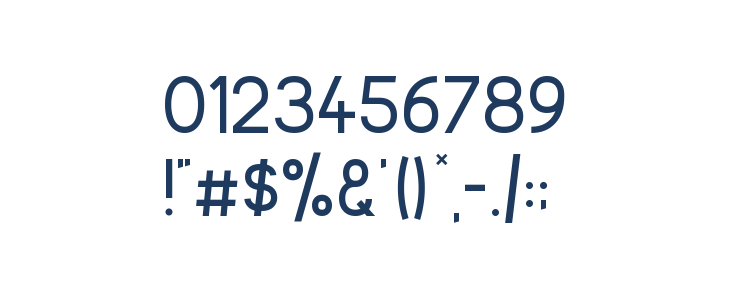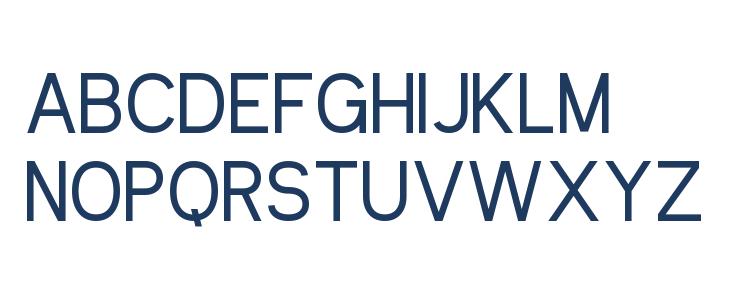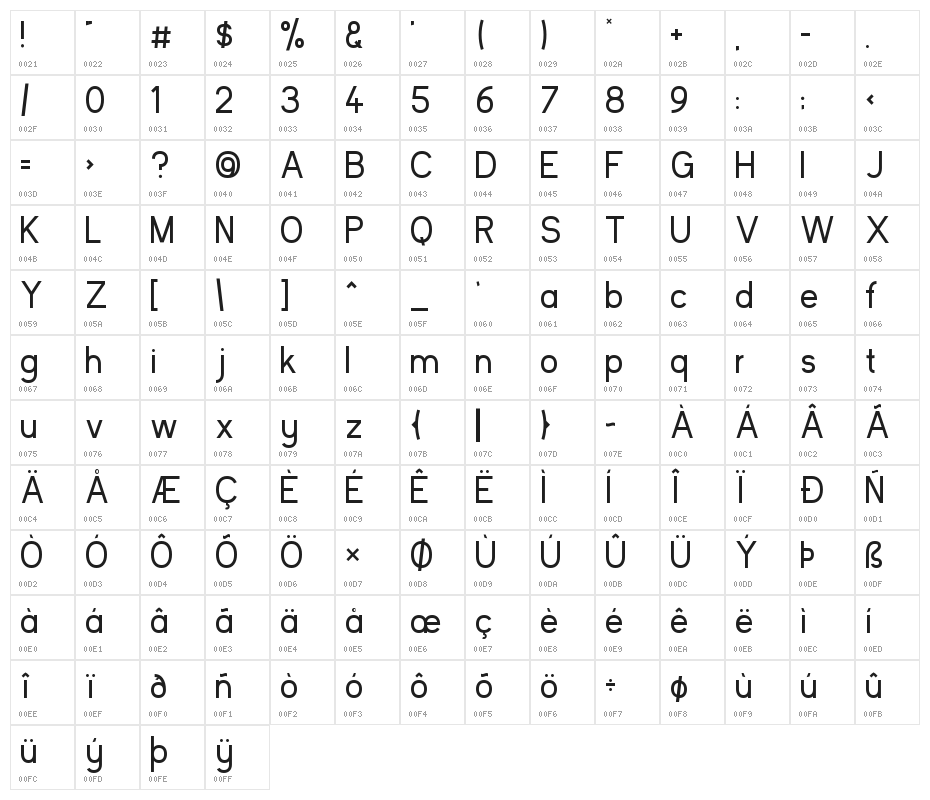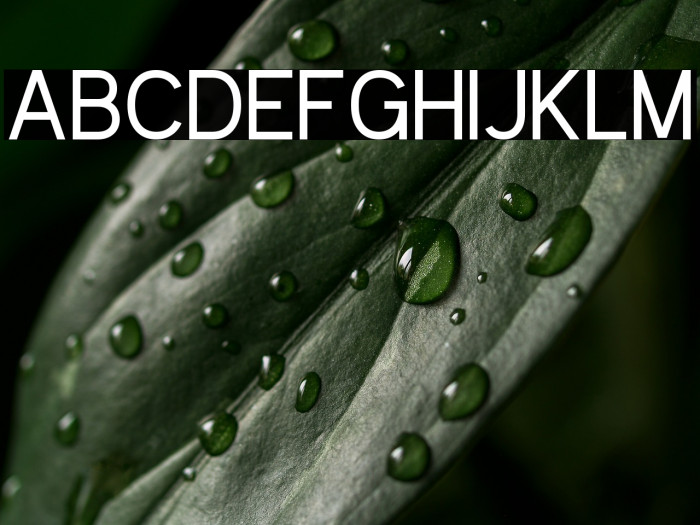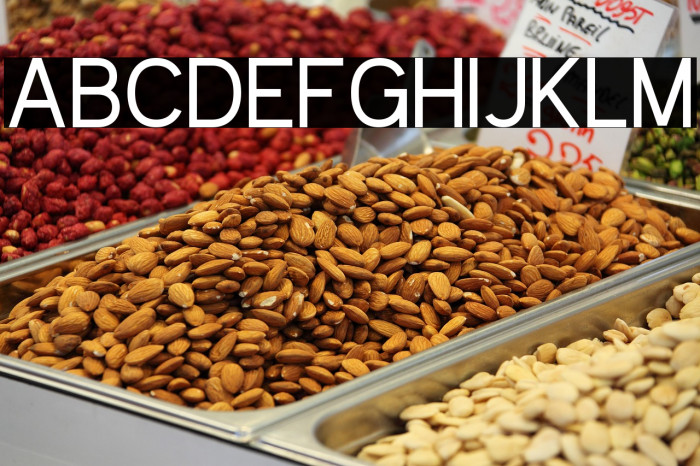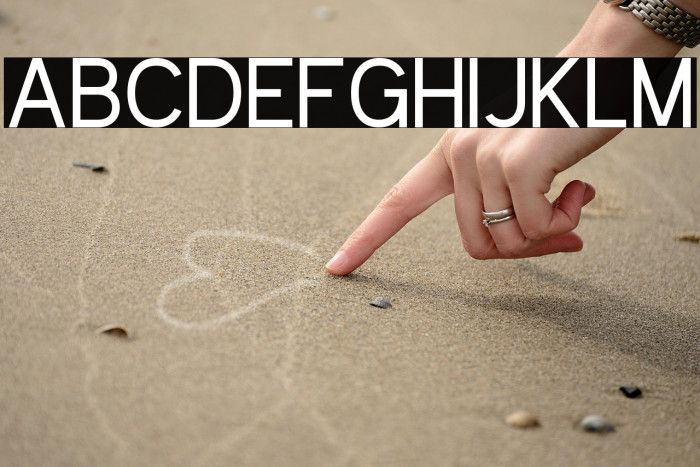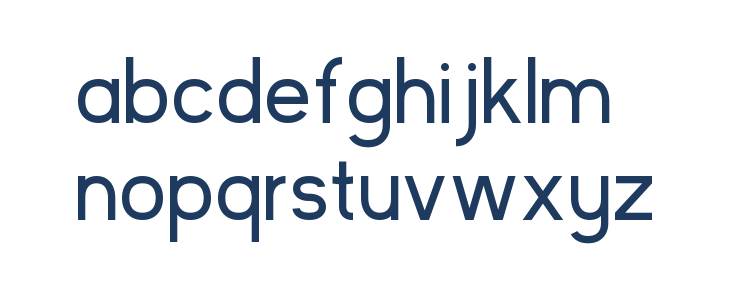
Kayak Sans Font
Kayak Sans Description
This typeface features a clean and modern sans-serif design, characterized by its geometric shapes and uniform stroke widths. The uppercase letters are bold and assertive, while the lowercase letters maintain a consistent and harmonious flow. The numerals are clear and easily distinguishable, making them suitable for various applications. The special characters are well-integrated, maintaining the overall aesthetic of the typeface. This font is versatile, offering a contemporary look that is both professional and approachable.
| Proposed Projects | Ideal for branding, web design, advertising, and editorial projects where a modern and clean aesthetic is desired. |